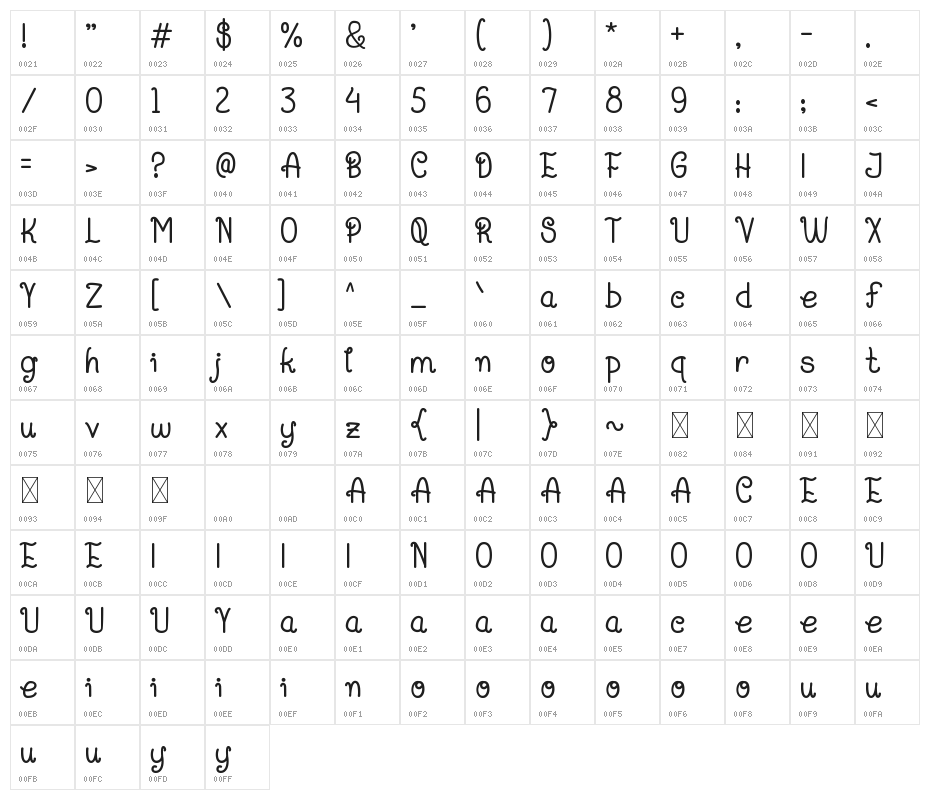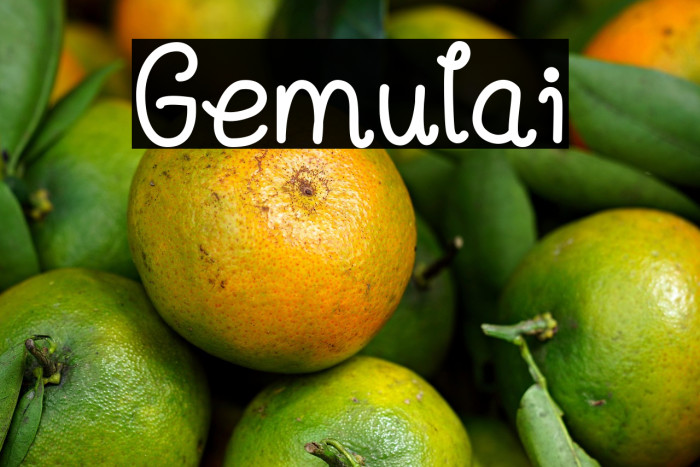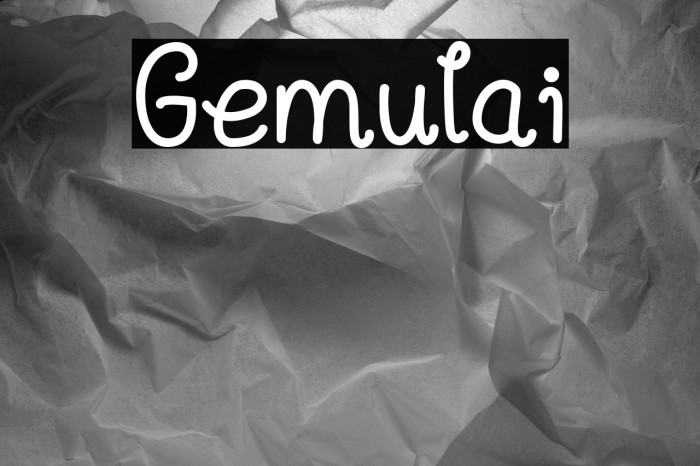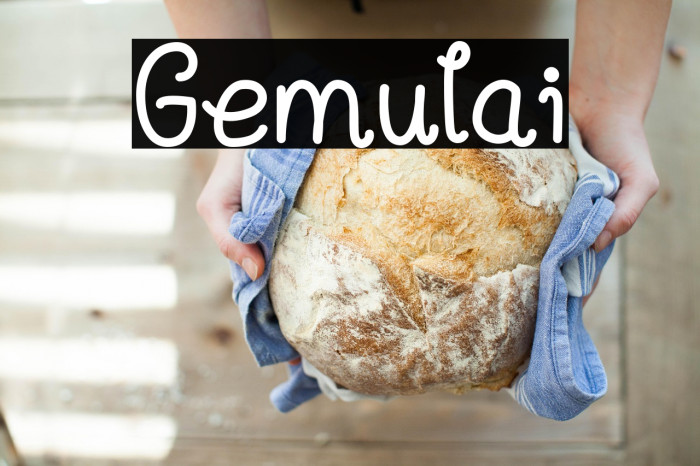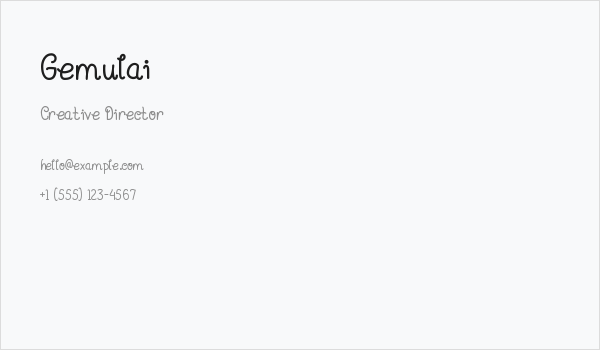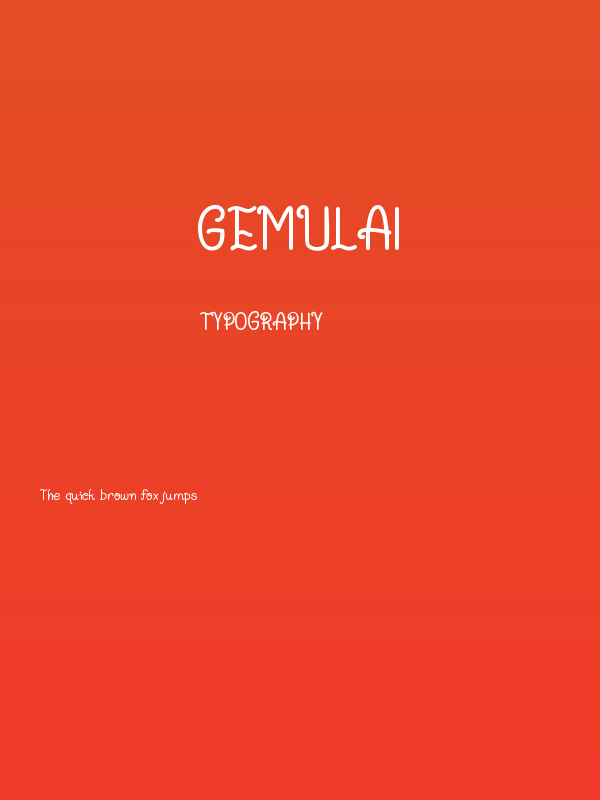
Gemulai Font
Gemulai Description
A playful, handwritten font with rounded edges and a casual, friendly appearance.
| Use Case | Headlines, Informal text, Branding |
| Proposed Projects | Greeting cards, children's books, casual branding. |